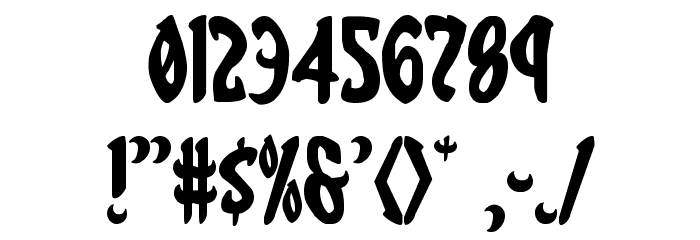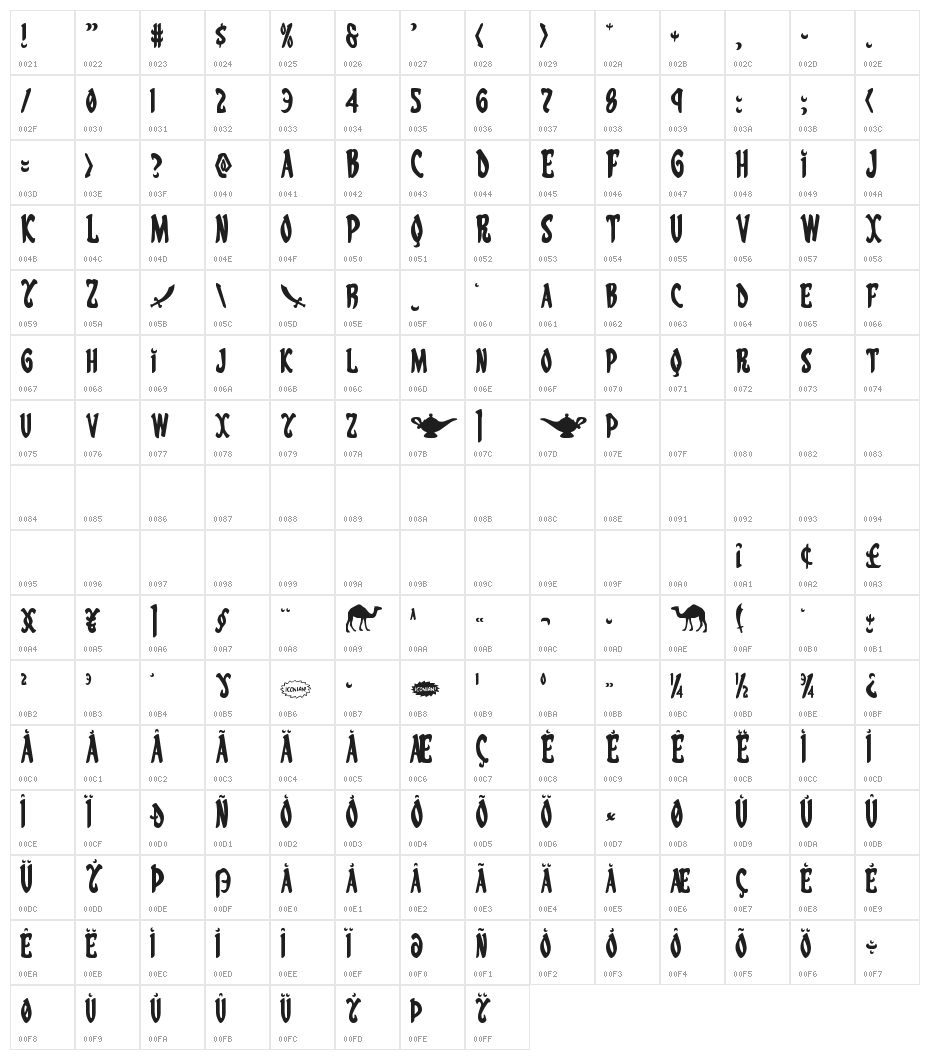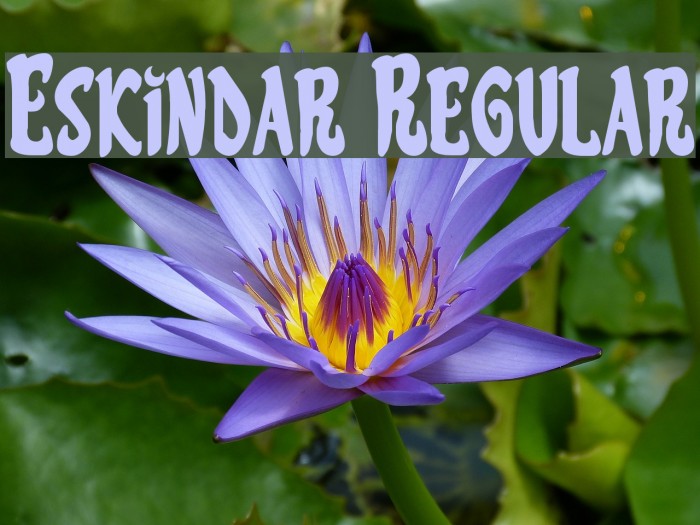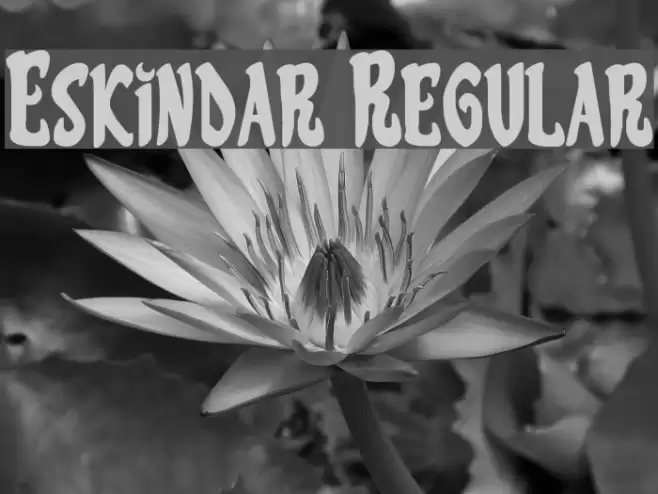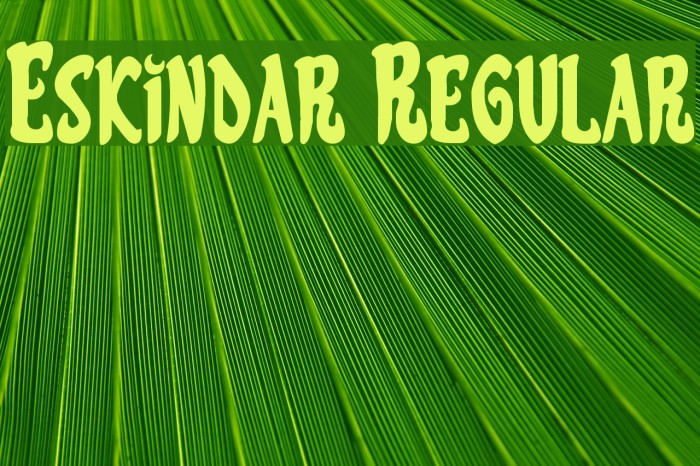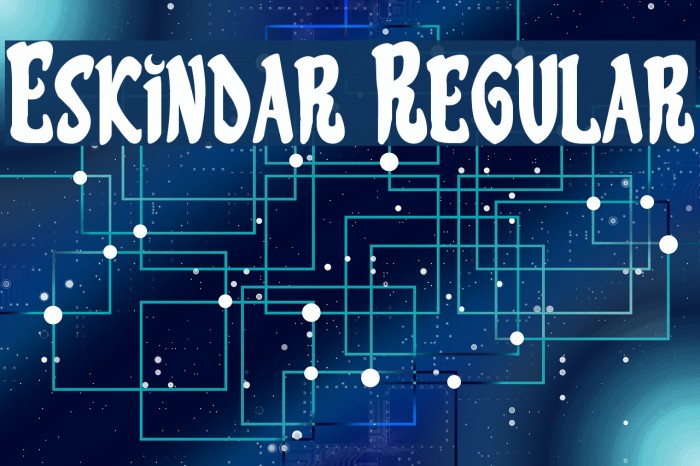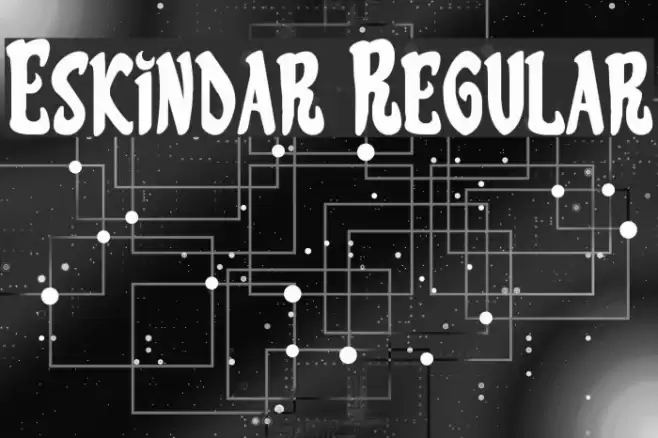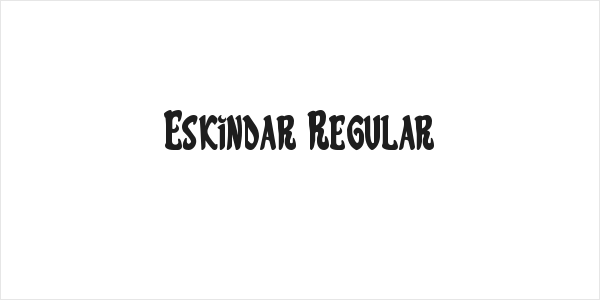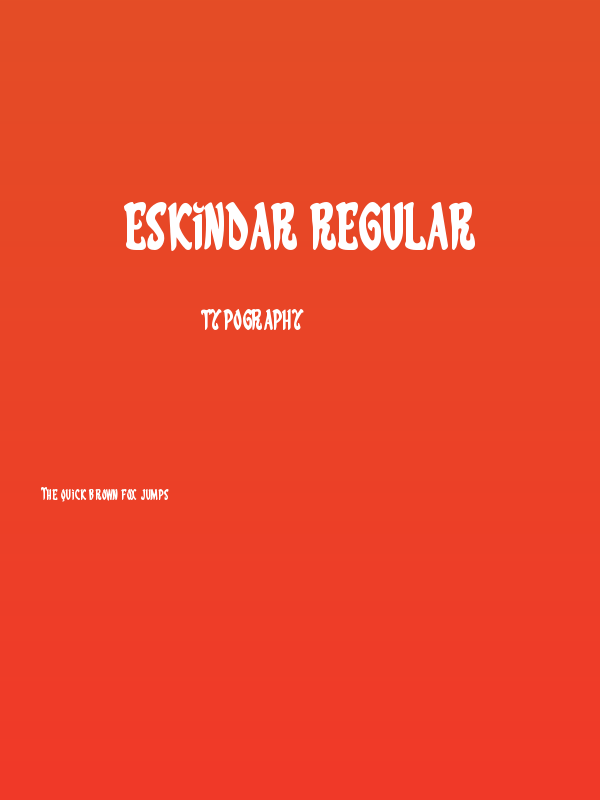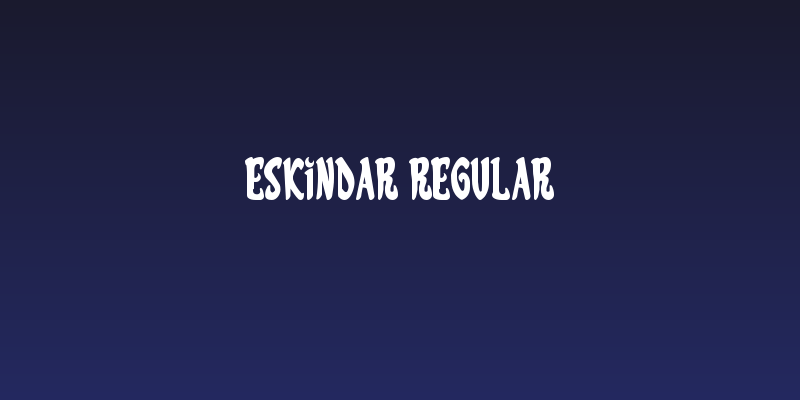
Eskindar Regular Font
Eskindar Regular Description
This font features a bold and dynamic style with a playful, slightly irregular form. The characters have a strong presence, with thick strokes and a unique, hand-drawn appearance. The uppercase and lowercase letters maintain a consistent style, while the numerals and special characters complement the overall aesthetic. The font's design is reminiscent of vintage signage, offering a sense of nostalgia and charm. Its distinctive look makes it suitable for projects that require a touch of personality and flair.
| Proposed Projects | Ideal for posters, branding, packaging, and any design that needs a bold, vintage touch. |